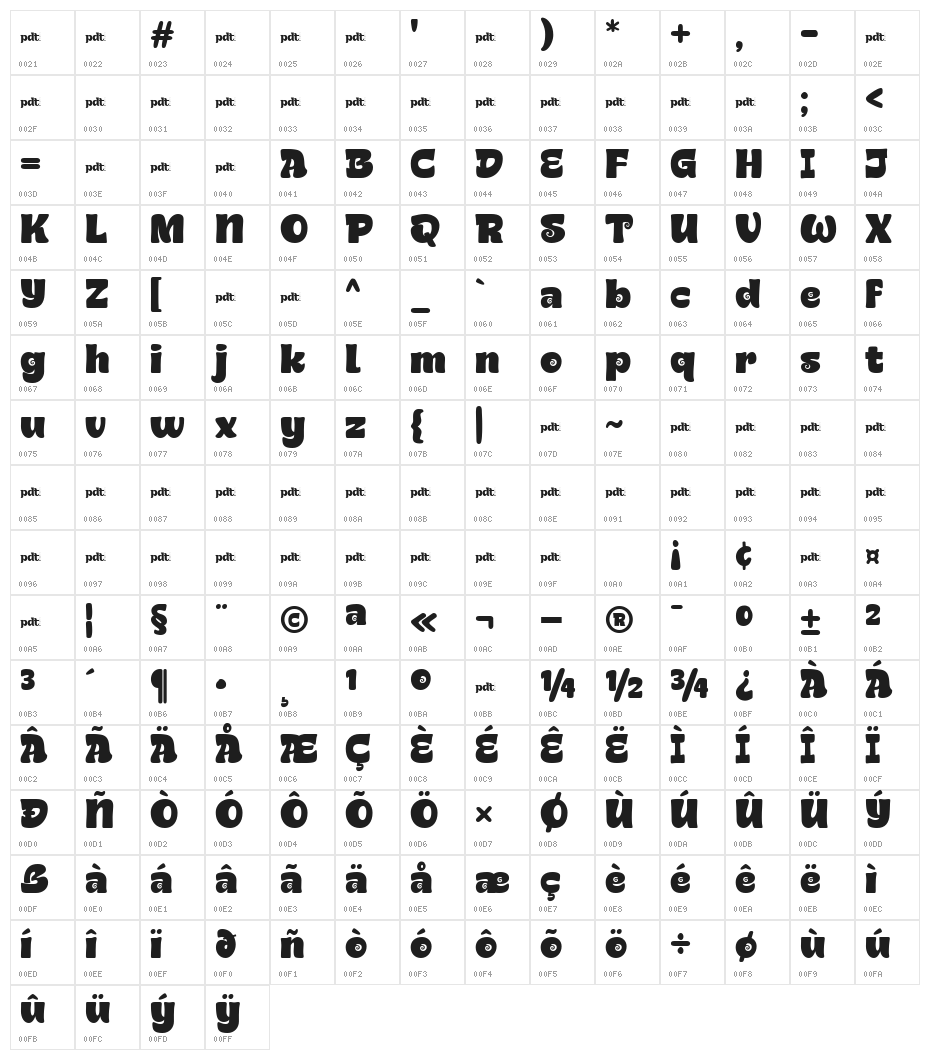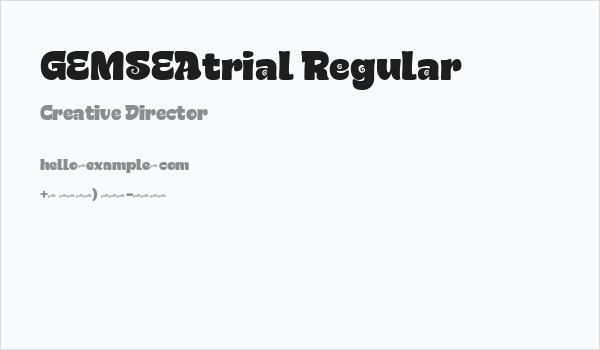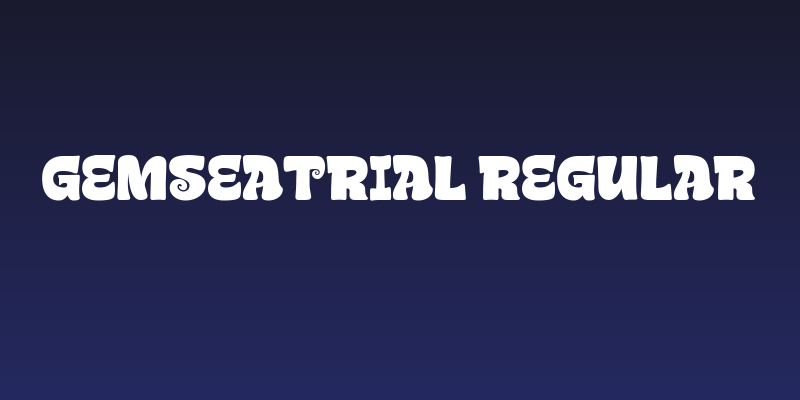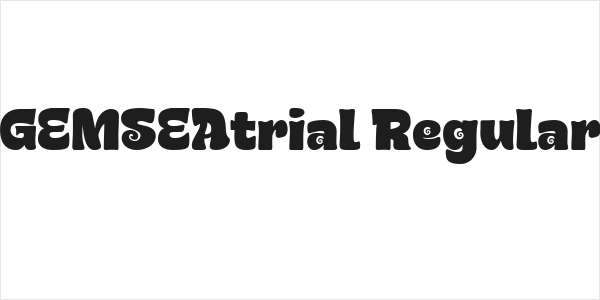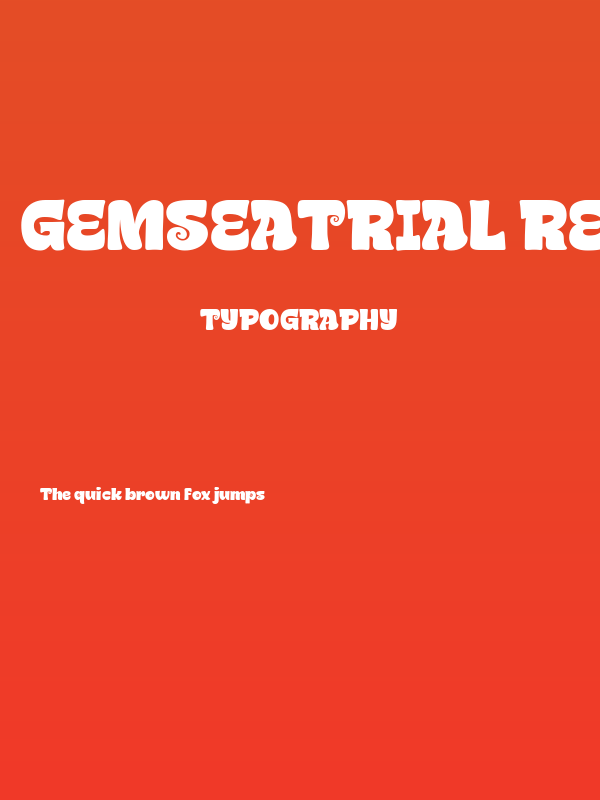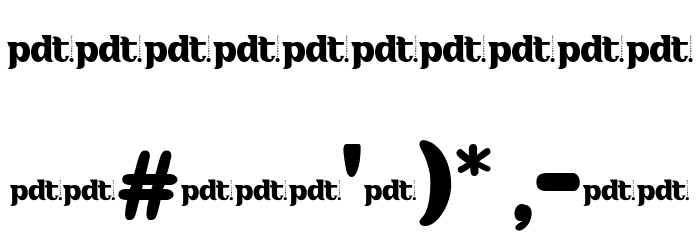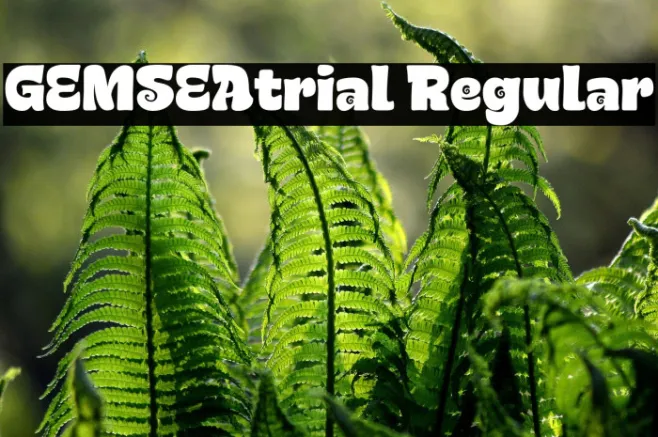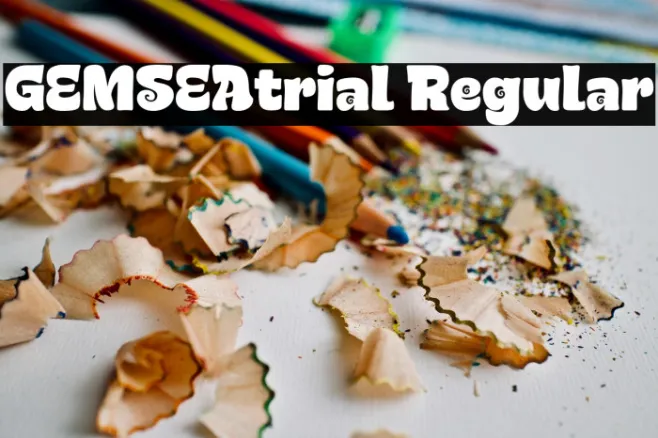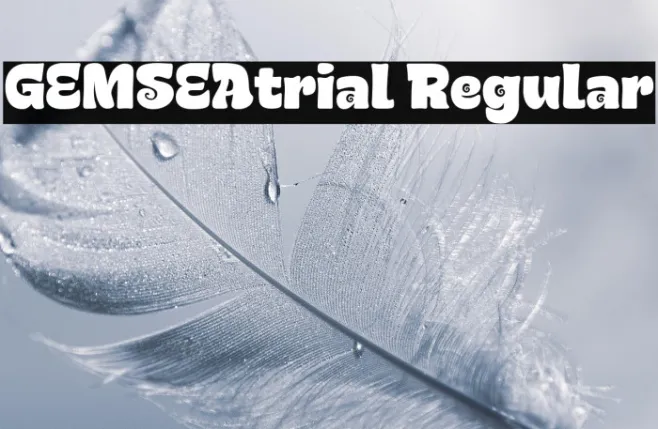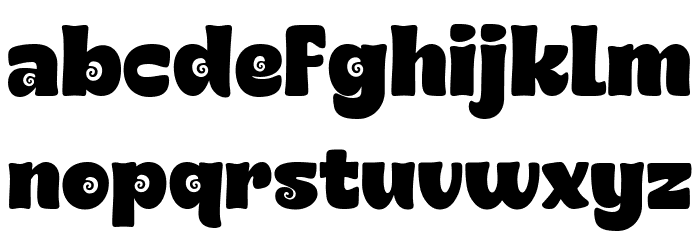
GEMSEAtrial Regular Font
GEMSEAtrial Regular Description
This playful and bold font features a whimsical design with thick, rounded strokes and unique character shapes. The uppercase letters are robust and eye-catching, while the lowercase letters maintain a consistent style with added flair, such as curls and swirls on certain characters. The numbers and special characters follow the same playful theme, making this font ideal for creative and fun projects. Its distinct style is both decorative and engaging, suitable for capturing attention in various design contexts.